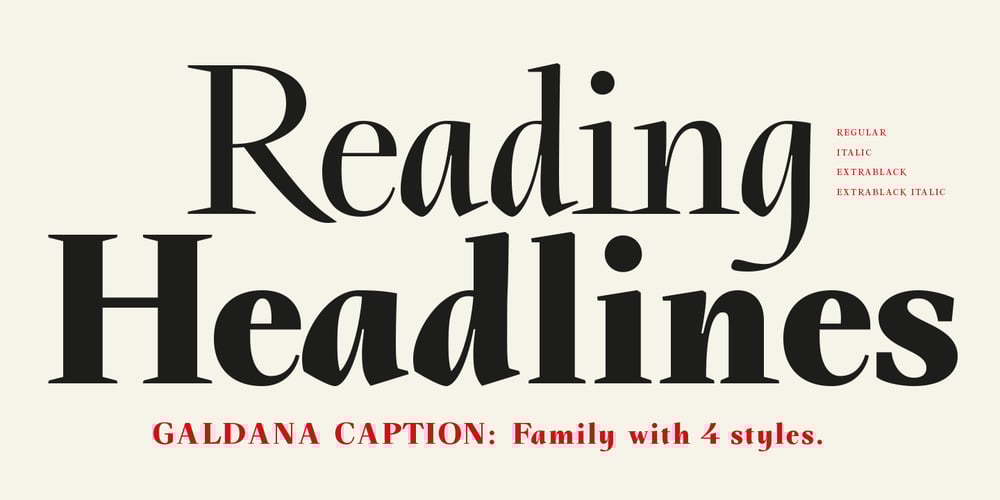
Galdana Caption Font Family was designed by Olcar Alcaide and published by Eurotypo. Galdana Caption contains 4 styles and family package options. Galdana Caption family contain 4 styles: Regular, Italic, ExtraBlack and ExtraBlack ItalicCreated to use as main typeface, headline or in combination with the family of fonts Galdana (text)The most important characteristic of the italic style is the slanted angle at seventeen degrees, short ascenders and descenders with dynamic calligraphic flavor. This family is completed with multilingual support and a set of OpenType features such as stylistic alternates, swashes, and ligatures.